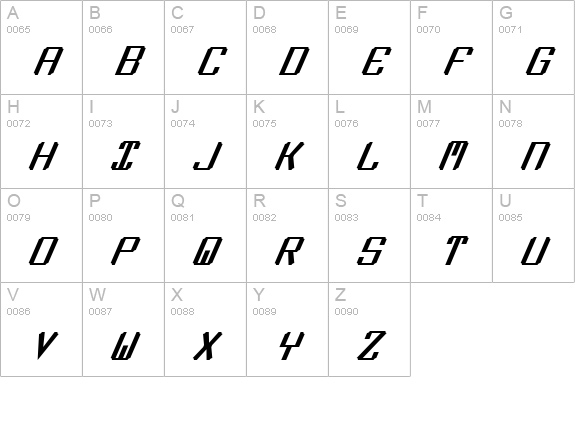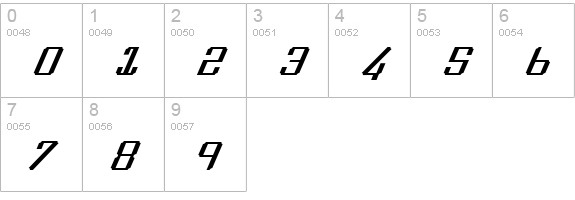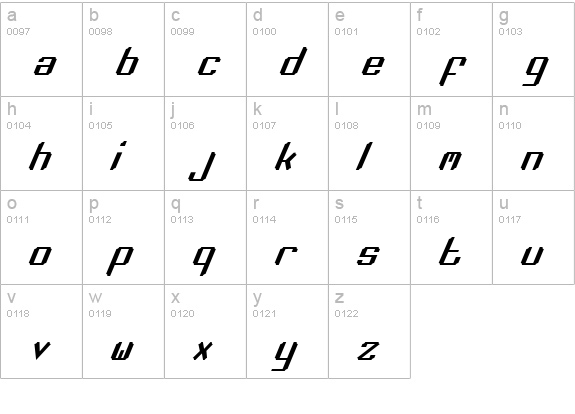
Zee Lance Italic Font Details
Zee Lance Italic is a distinctive, italic variant in the Zee typeface family \xE2\x80\x94 well suited to design and typography projects.
Zee Lance Italic is a beautiful and elegant font that exudes sophistication and class. Its slanted and stylish design adds a touch of flair to any project, making it perfect for luxury brands, invitations, and editorial design. The italicized characters offer a sense of movement and dynamism, helping to create a visually appealing and engaging text. What sets Zee Lance Italic apart is not only its aesthetic appeal but also its accessibility. This exquisite font is available for free download at FontsMarket.com, allowing designers and creatives to effortlessly incorporate it into their work without any cost. With Zee Lance Italic, you can elevate your designs with a touch of refinement and refinement, all while enjoying the convenience of a freely accessible font.